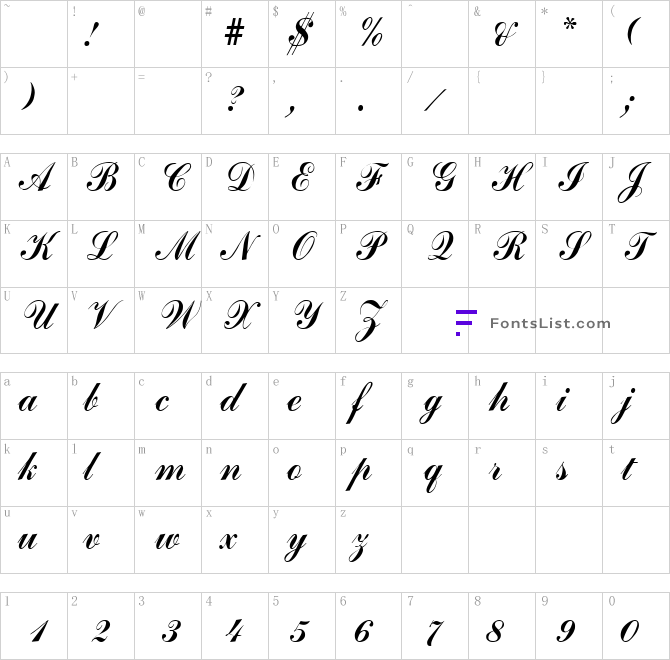
- Font Name:Arenski
Arenski-Regular.ttf is a very beautiful artistic font, Arenski-Regular.ttf is widely used in the design and printing of various books and pictures,Arenski-Regular.ttf has a strong visual impact,Arenski-Regular.ttf is a commonly used font in newspapers, magazines and books, and is used in posters, e-commerce Poster design, store design, logo design, font design and other fields.Arenski-Regular.